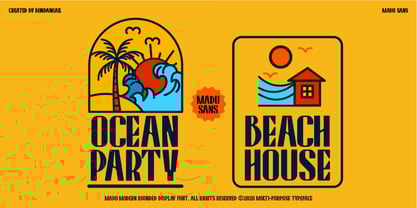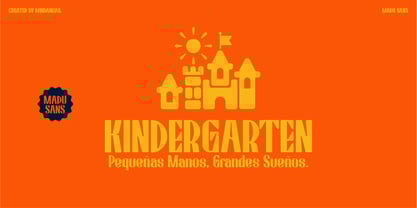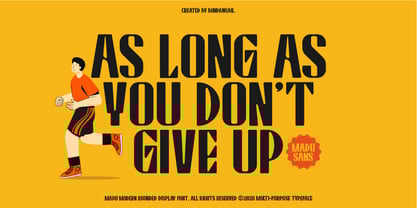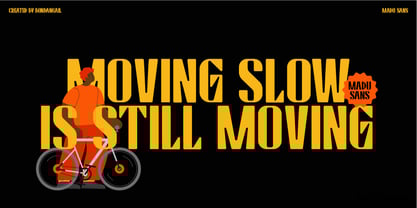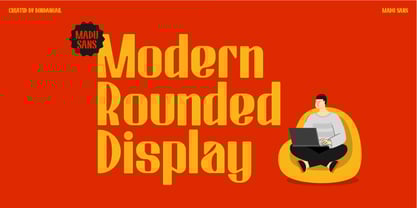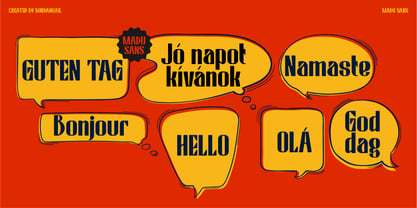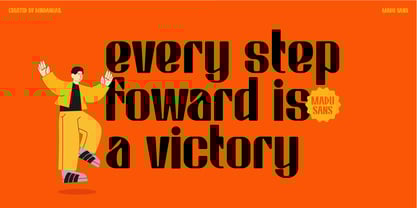
Madu
por BondanGail
La familia tipográfica Madu fue diseñada por Bondan Gail Saputro y publicada por BondanGail. Madu contiene 1 estilos. Más información sobre esta familia
Madu — Modern Rounded Display Madu is a bold and modern condensed display font that blends strong structure with soft, rounded curves for a confident yet approachable look. Designed to stand out at large sizes, Madu’s tall proportions and smooth geometry make it perfect for branding, posters, packaging, social media, and editorial headlines. Playful but powerful, Madu brings a fresh, contemporary voice to designs that need to feel modern, expressive, and memorable. Madu Includes: • 1 style Typefaces Regular • Uppercase, Lowercase, Numerals, Symbols, and Punctuation • Multilingual support • Compatible with PC & Mac • Accessible in Adobe Illustrator, Adobe Photoshop, Adobe InDesign, and Microsoft Word. • Note: All photographs, pictures, and vectors used in the preview are not included; they are for illustration purposes only.
Diseñadores: Bondan Gail Saputro
Fundición: BondanGail
Madu